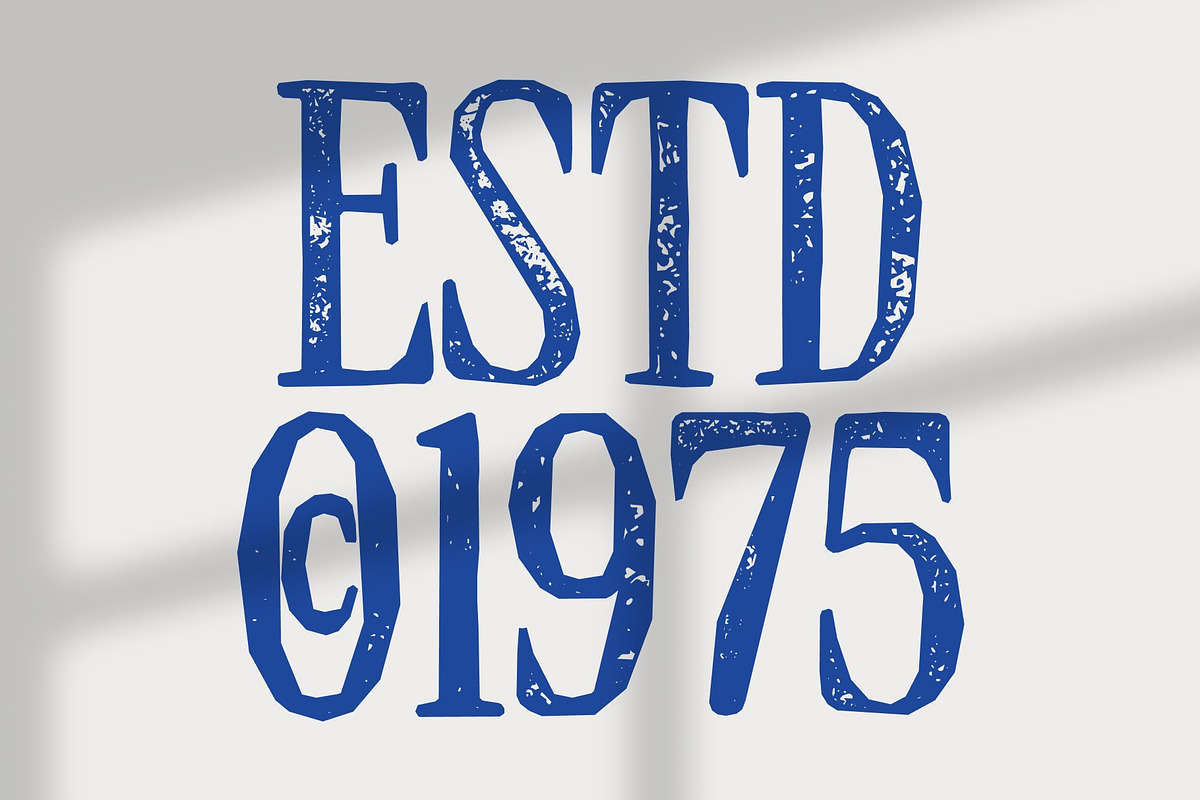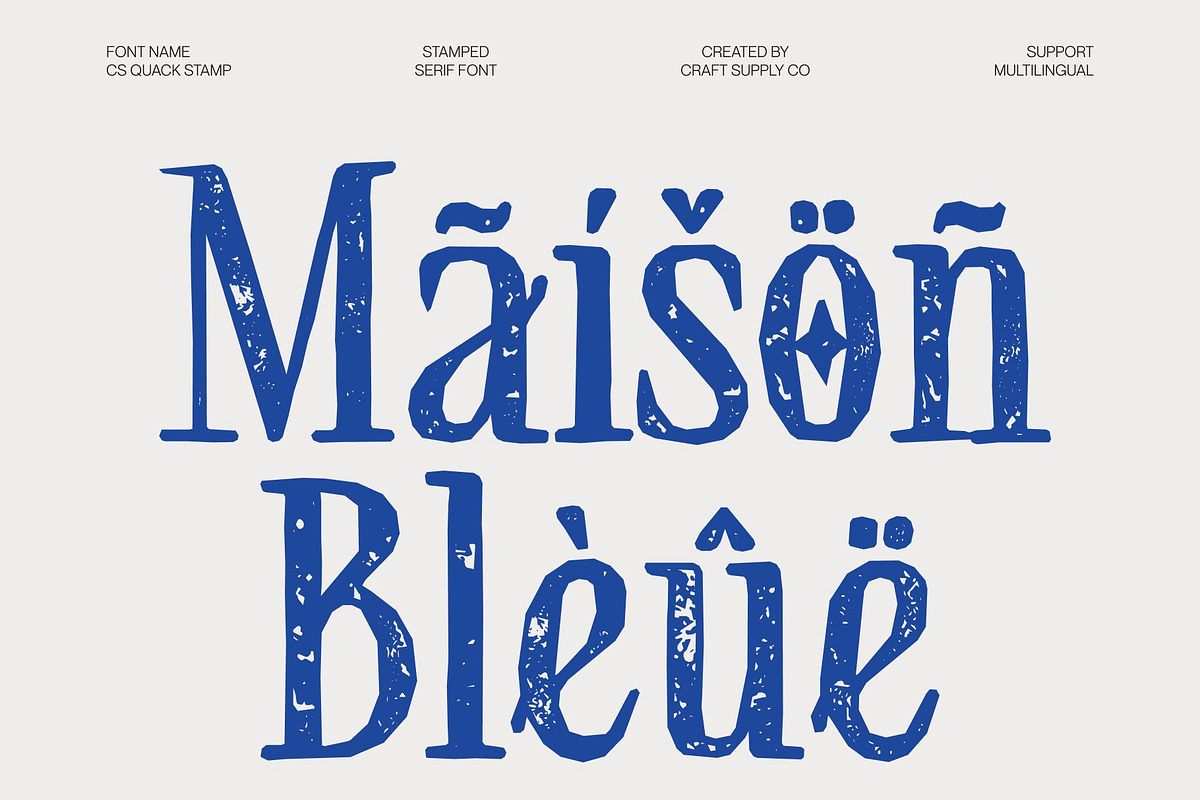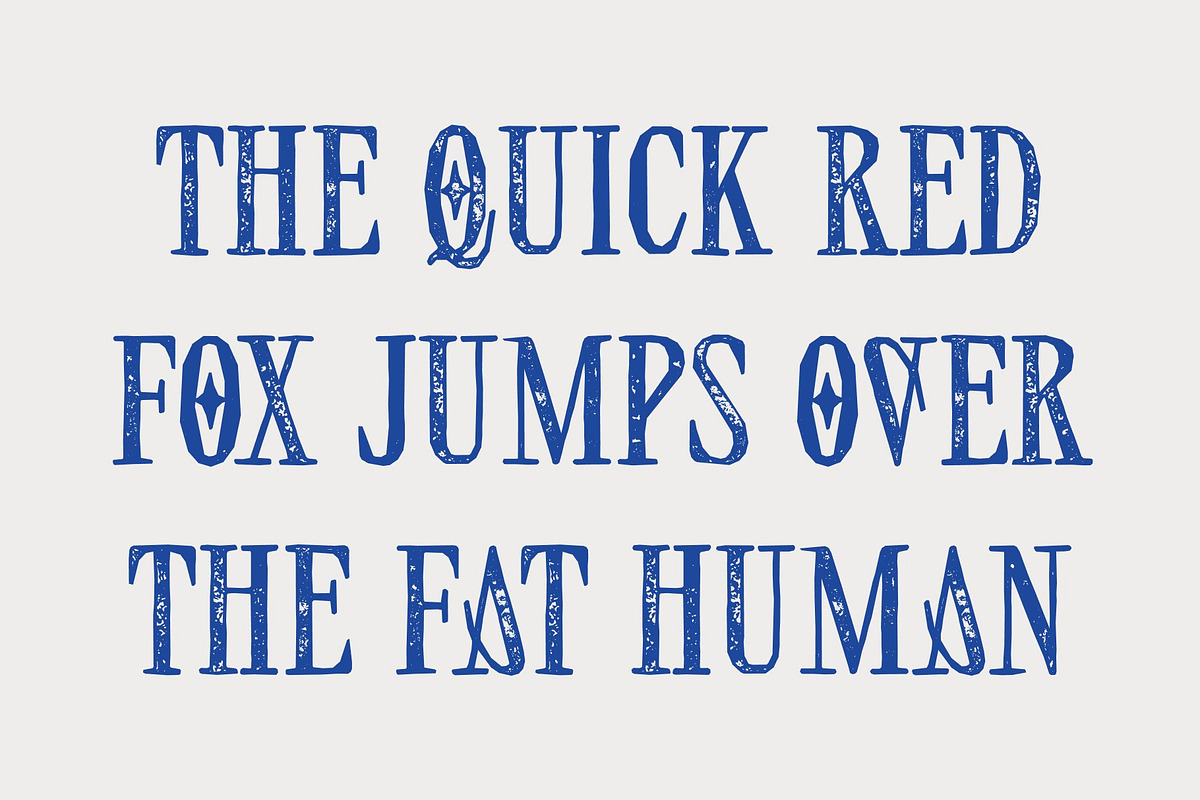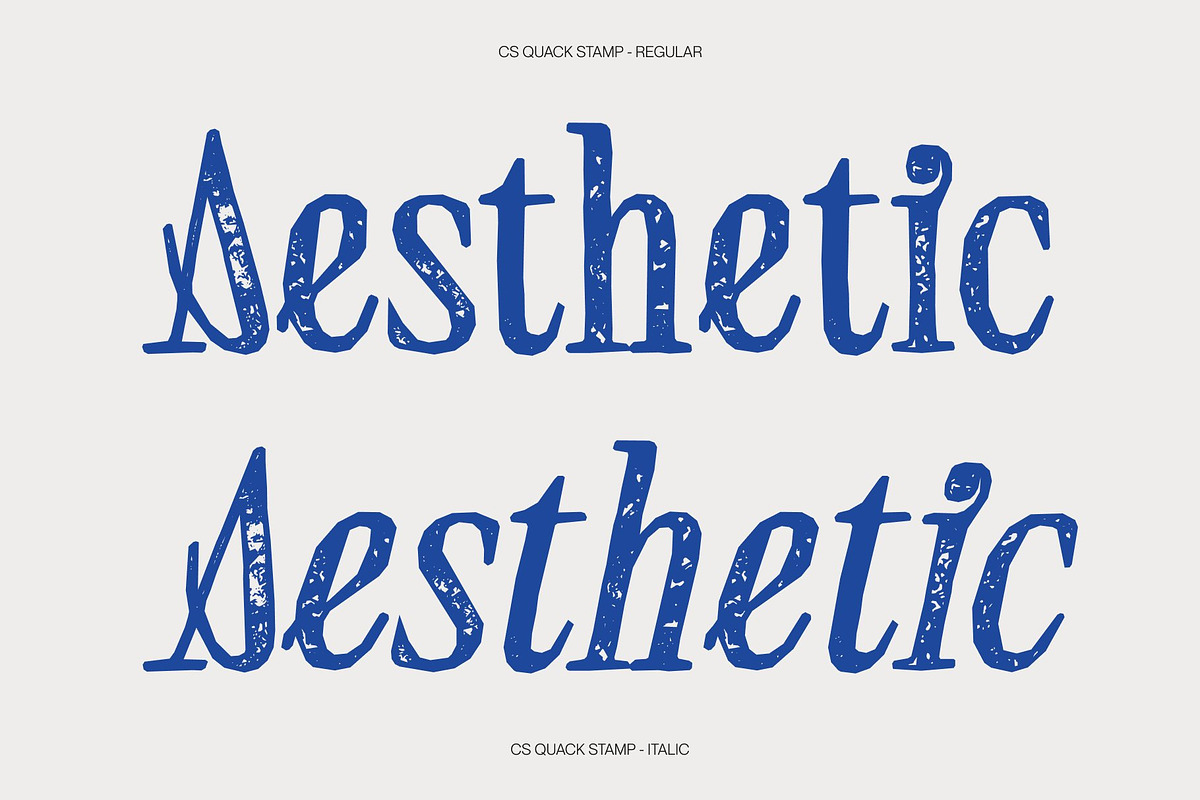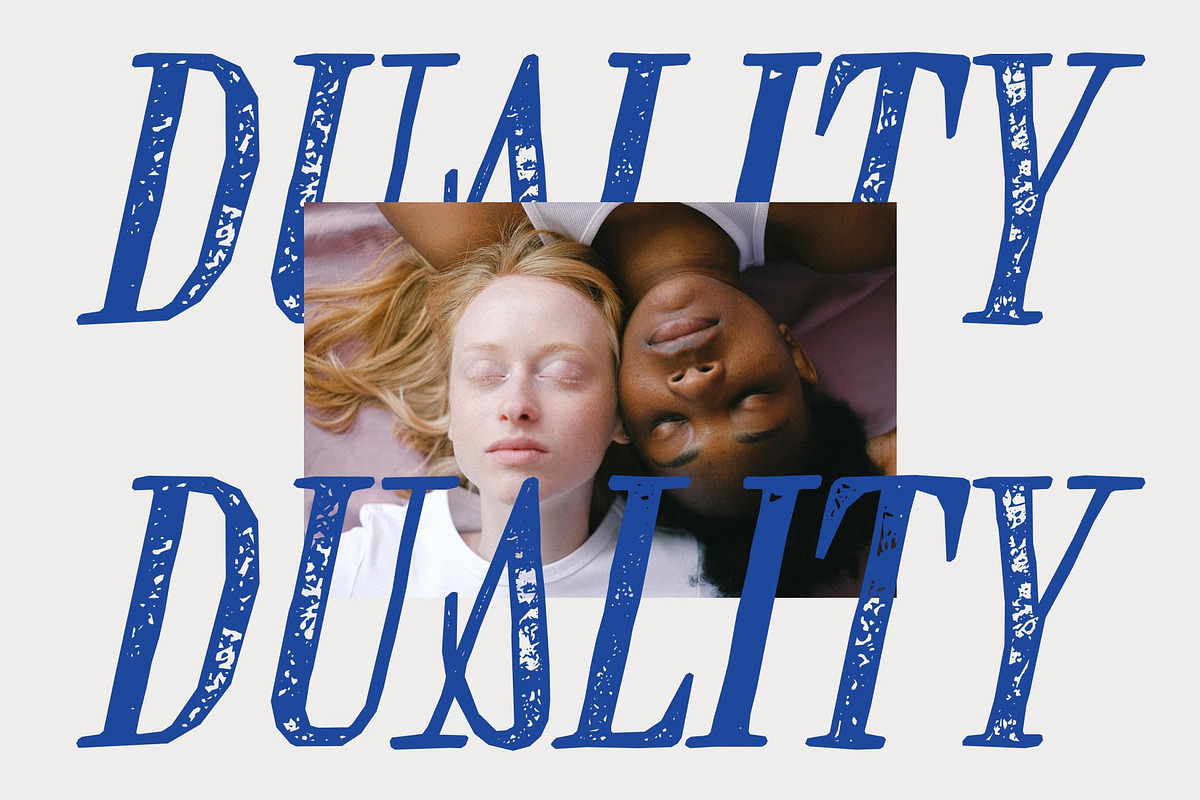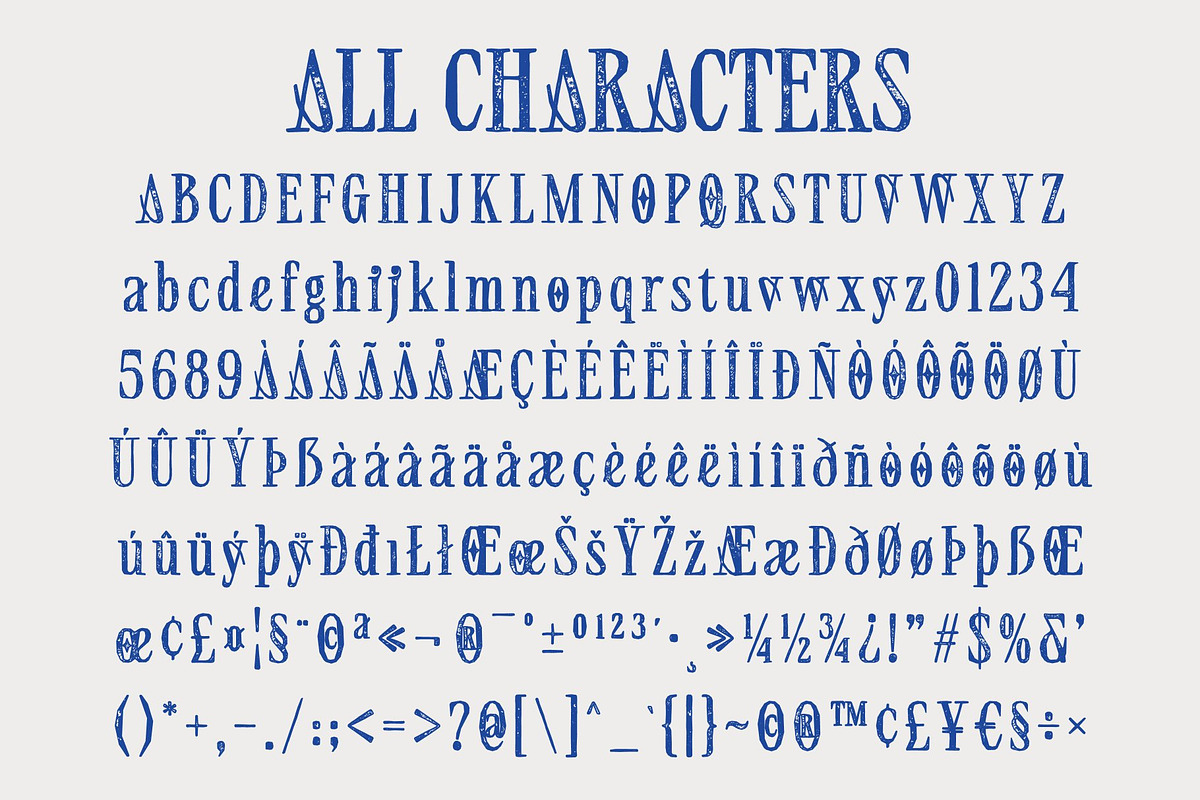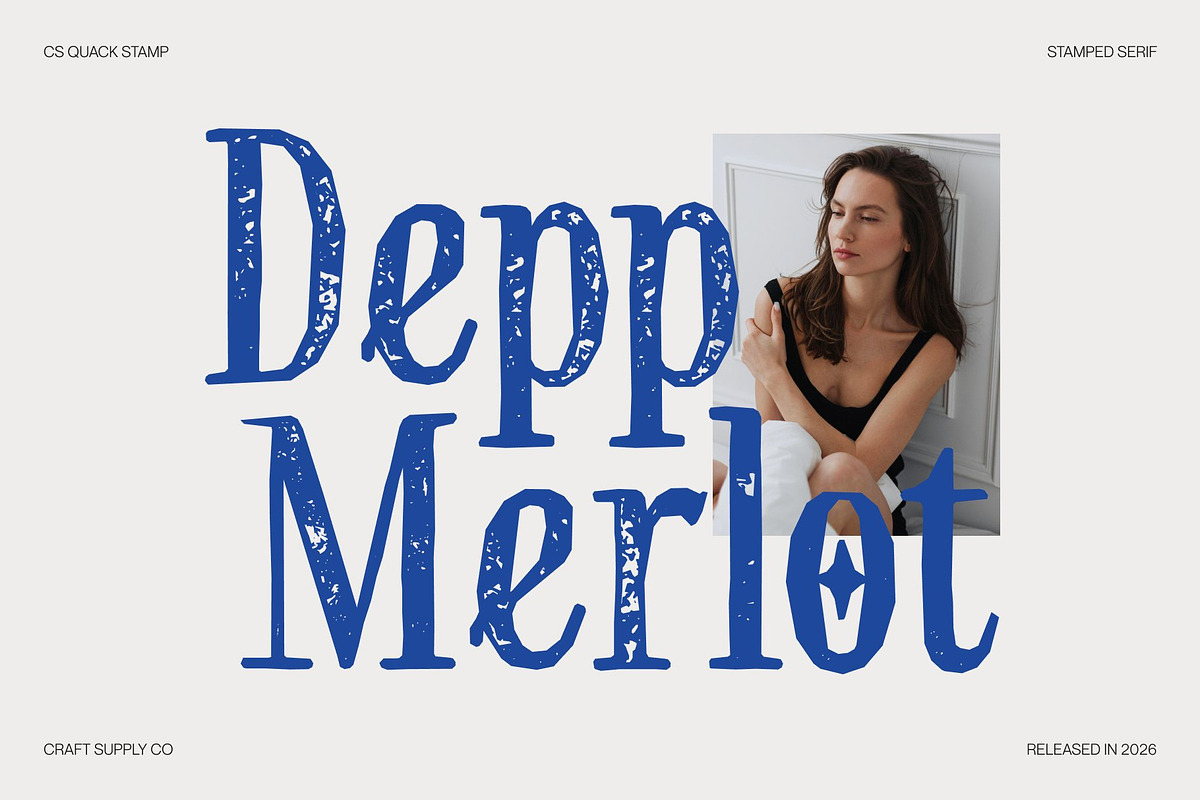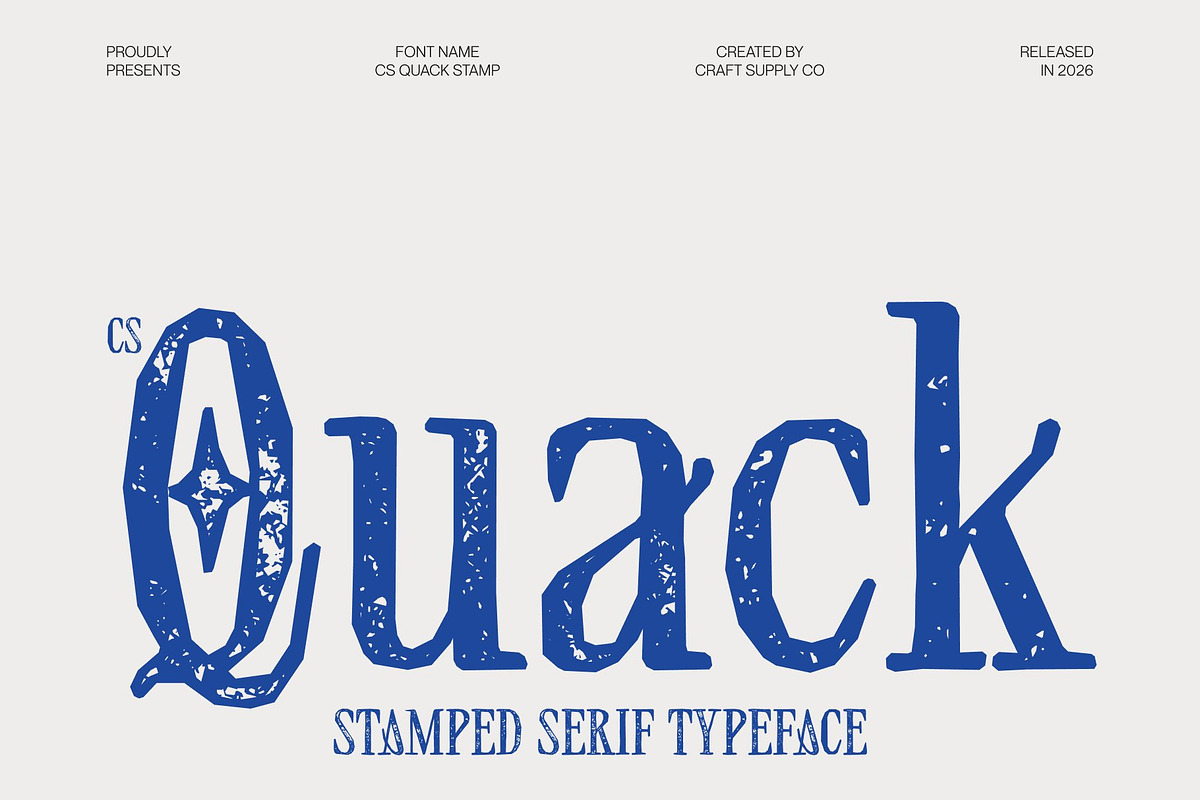
CS Quack Stamp
CS Quack Stamp – Aesthetic Display Font: Where Modern Luxury Meets Vintage Expression
Condensed Proportions with Sharp Serif Elegance This is a true aesthetic display font crafted with condensed proportions, sharp serif details, and refined curves that radiate luxury and exclusivity. Its sleek structure creates a polished and fashionable appearance, allowing every composition to feel elegant, professional, and visually sophisticated.
Trendy Minimalism with Instagram-Ready Style This font delivers a stylish and contemporary visual identity. Its clean forms and refined spacing create a chic, Instagram-ready look that feels fresh, fashionable, and effortlessly modern. The font’s elegant rhythm makes it perfect for designs that seek beauty, clarity, and premium appeal.
Stamped Texture with Vintage Artistic Charm This font introduces a handcrafted texture inspired by traditional print techniques. The slightly rough and organic finish adds vintage character, artistic depth, and authentic old-design charm to every letter. This textured detail enriches the refined serif forms with warmth and expressive individuality.
Perfect for Fashion Branding and Elegant Design This font perfect for fashion branding, elegant invitations, social media posts, modern posters, and sophisticated creative projects. Its condensed structure and textured detailing make it ideal for logos, packaging, magazine layouts, promotional graphics, and luxury visual identities.
CS Quack Stamp Regular
CS Quack Stamp Italic